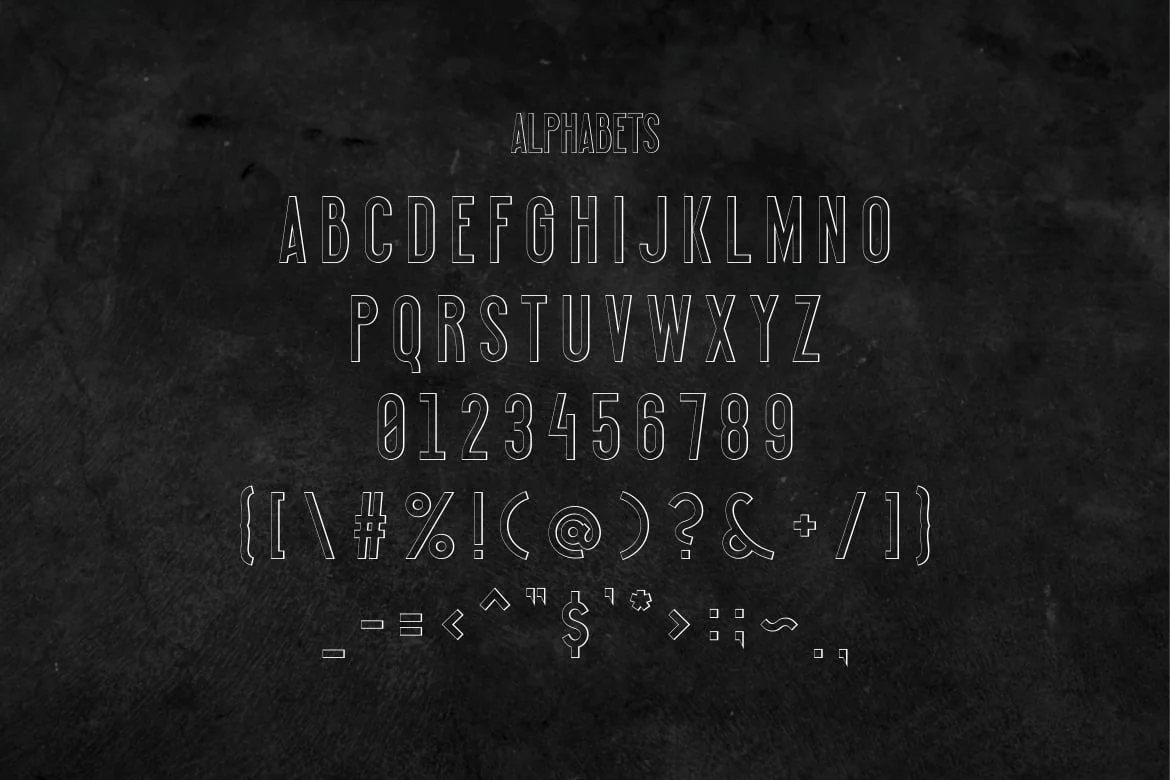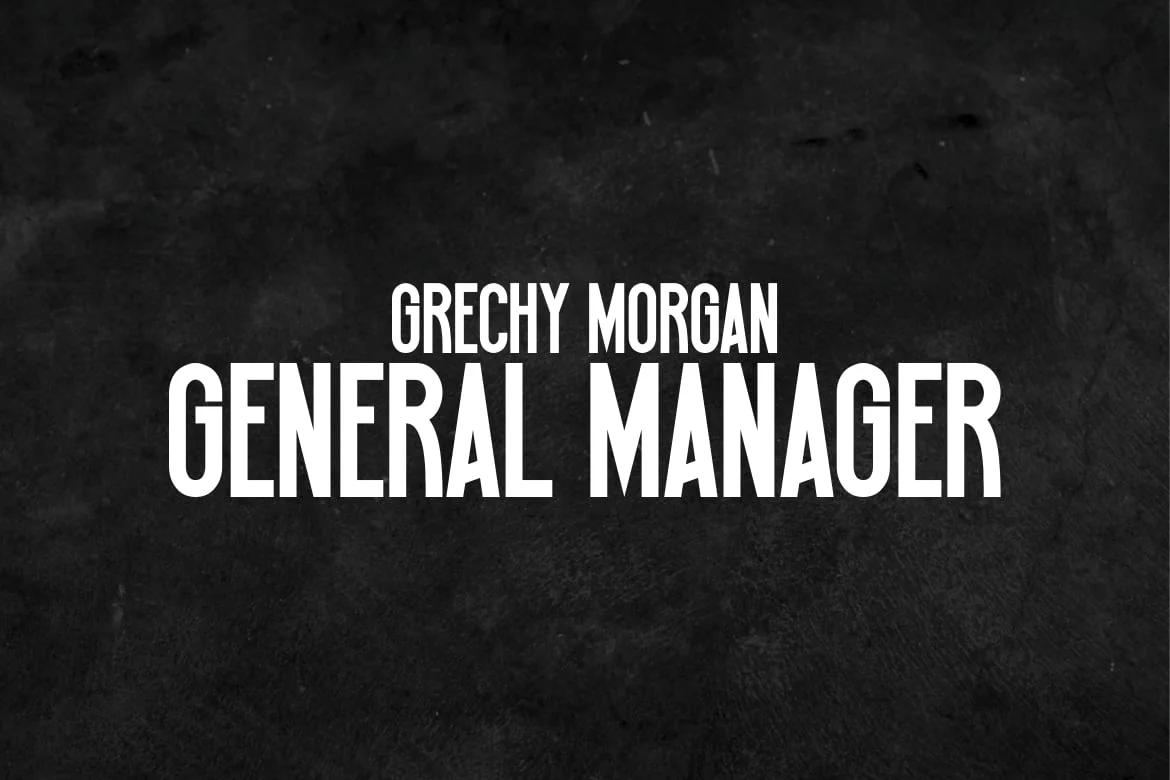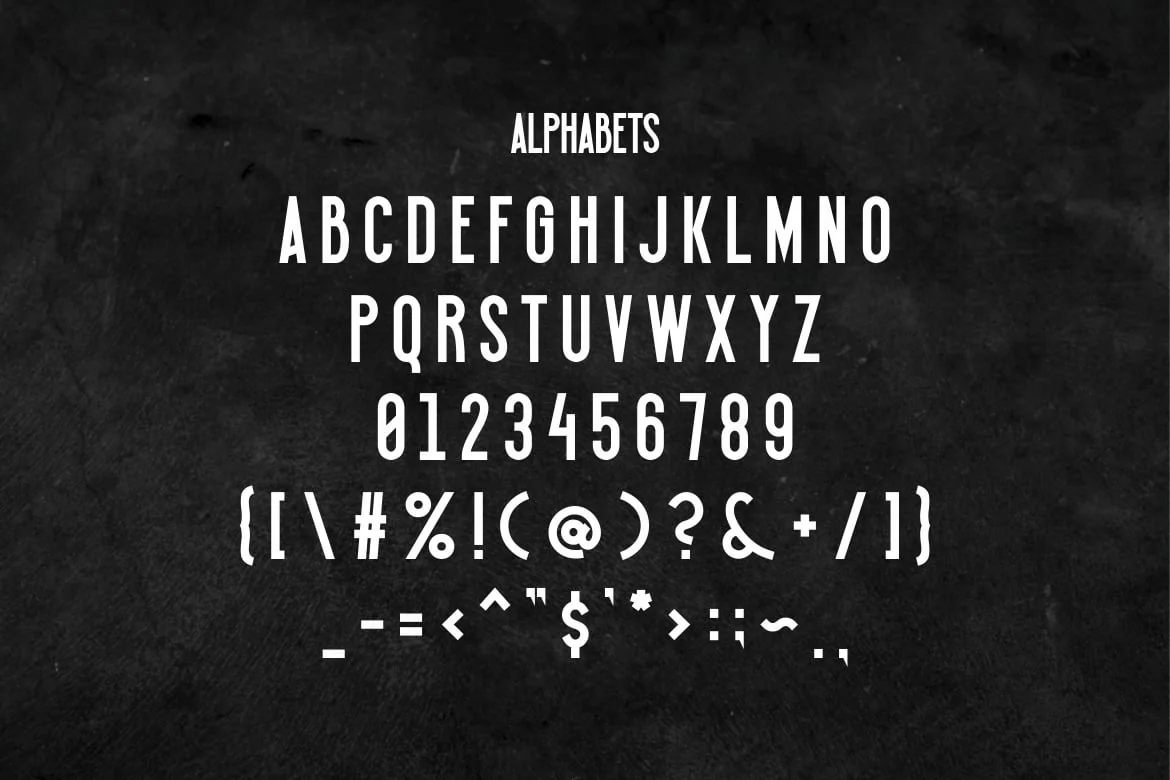
Stagore Font
is a font designed for descriptions of Progress, High Class, above average, Position or Title, Business Development, and anything that refers to things that are constantly evolving.
the shape of the font is tall and half bold, making a combination of the philosophy of the use of the font.
As for the shape of the outline and shadow, it is a complement to the font features.
fonts are available in 3 models.
- regular
- outline
- shadow